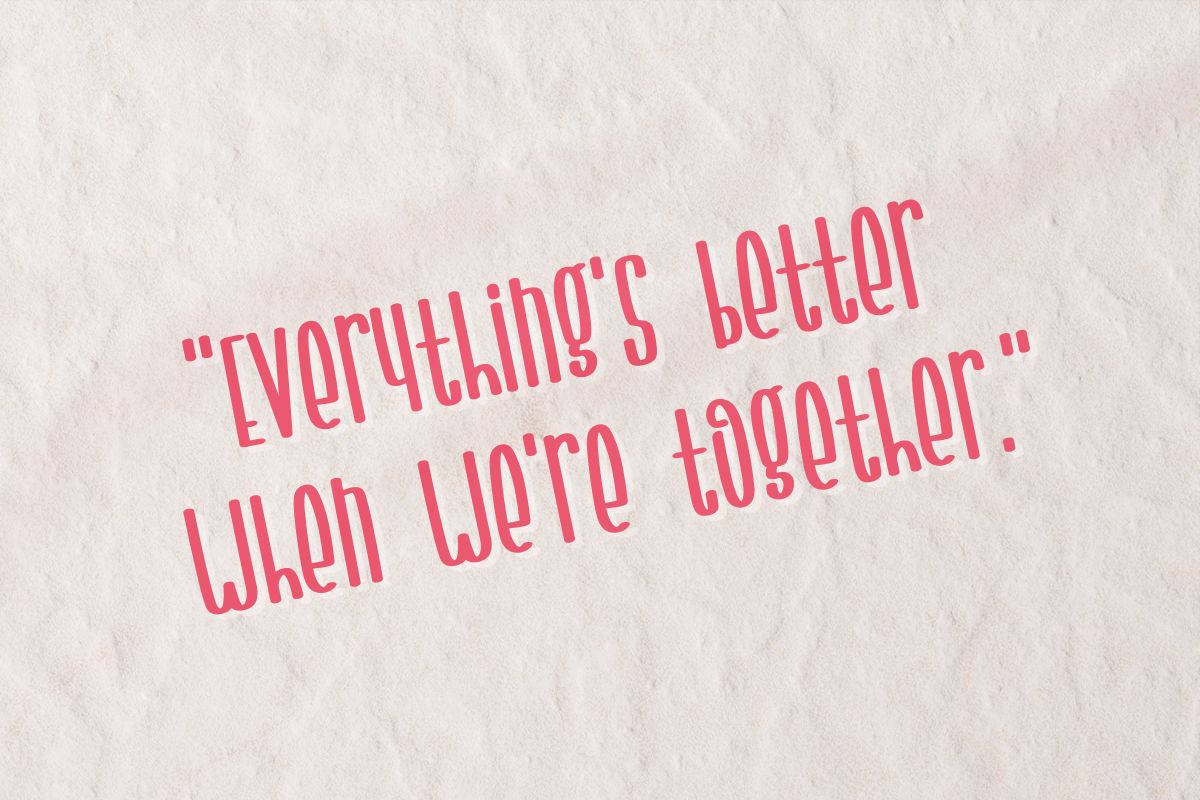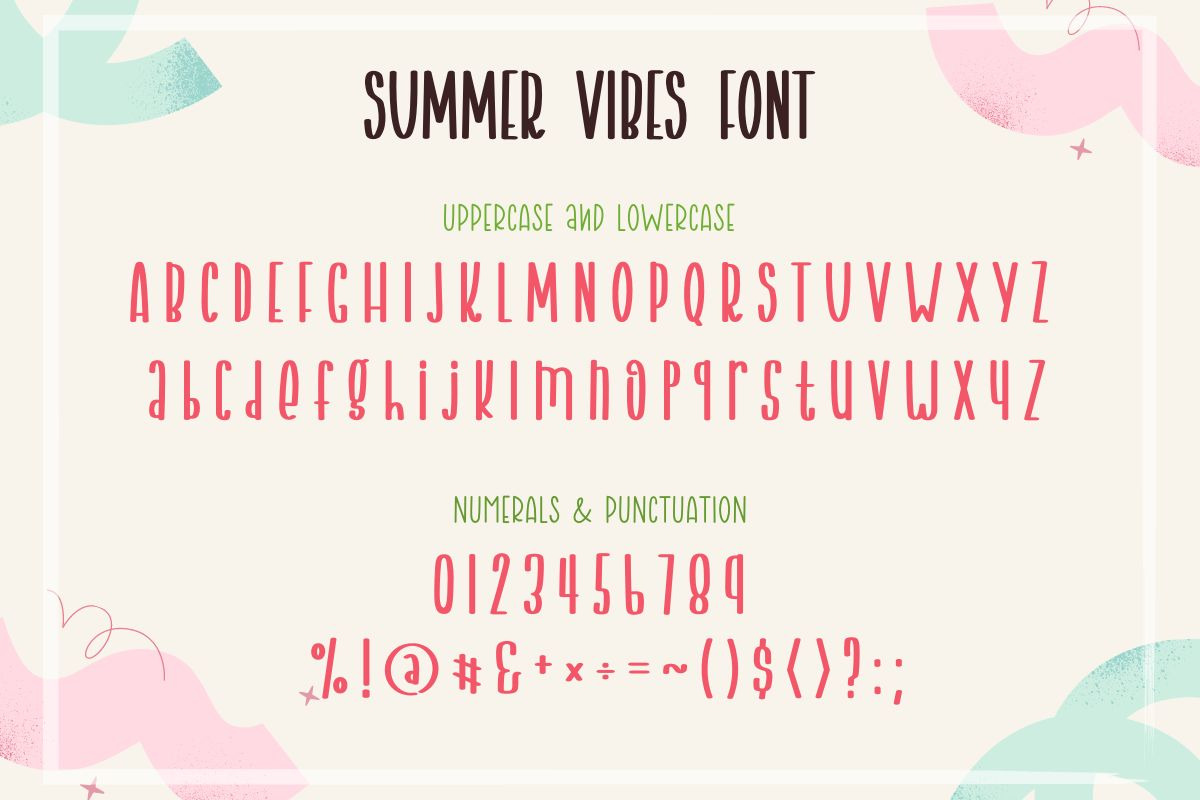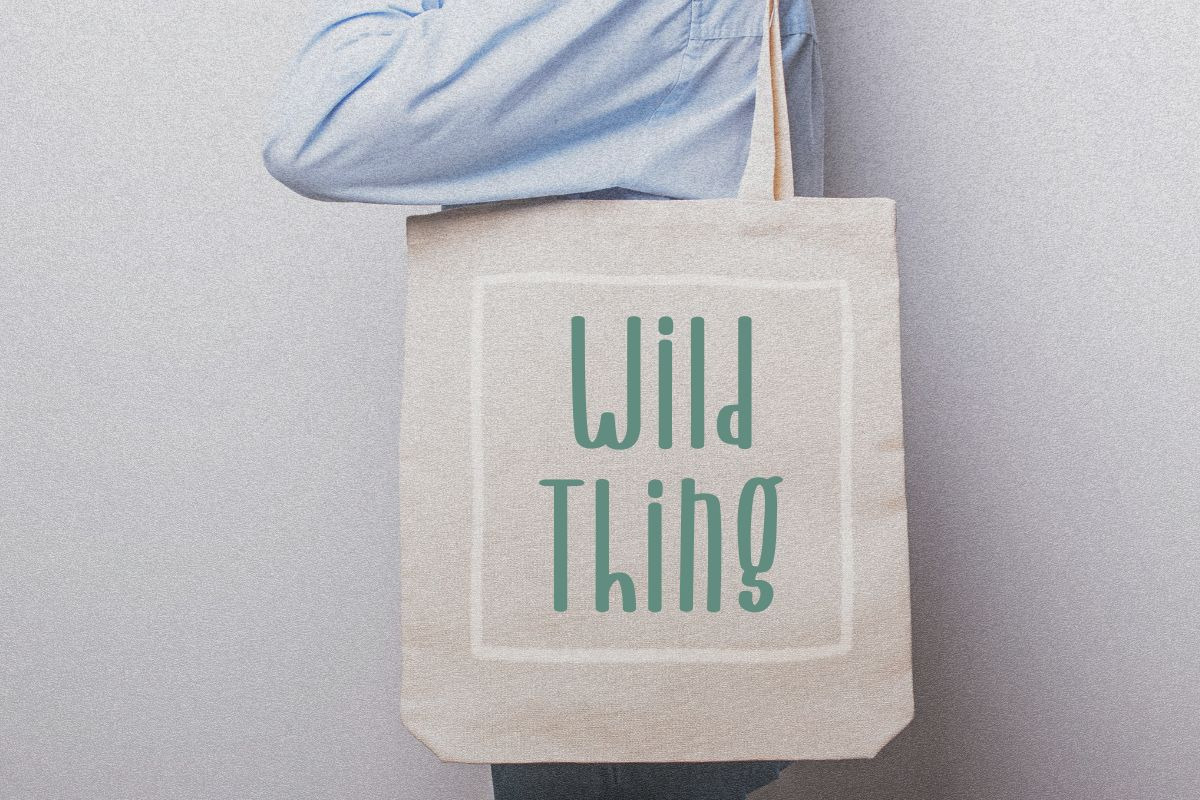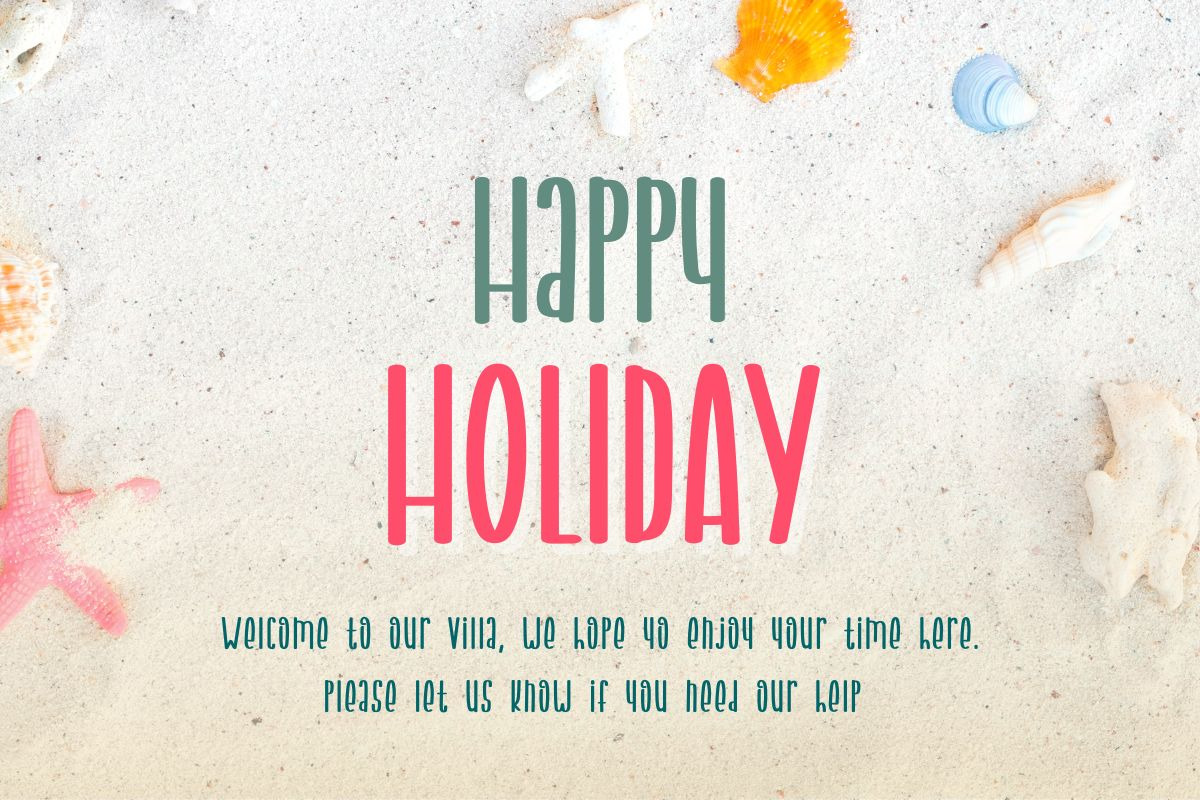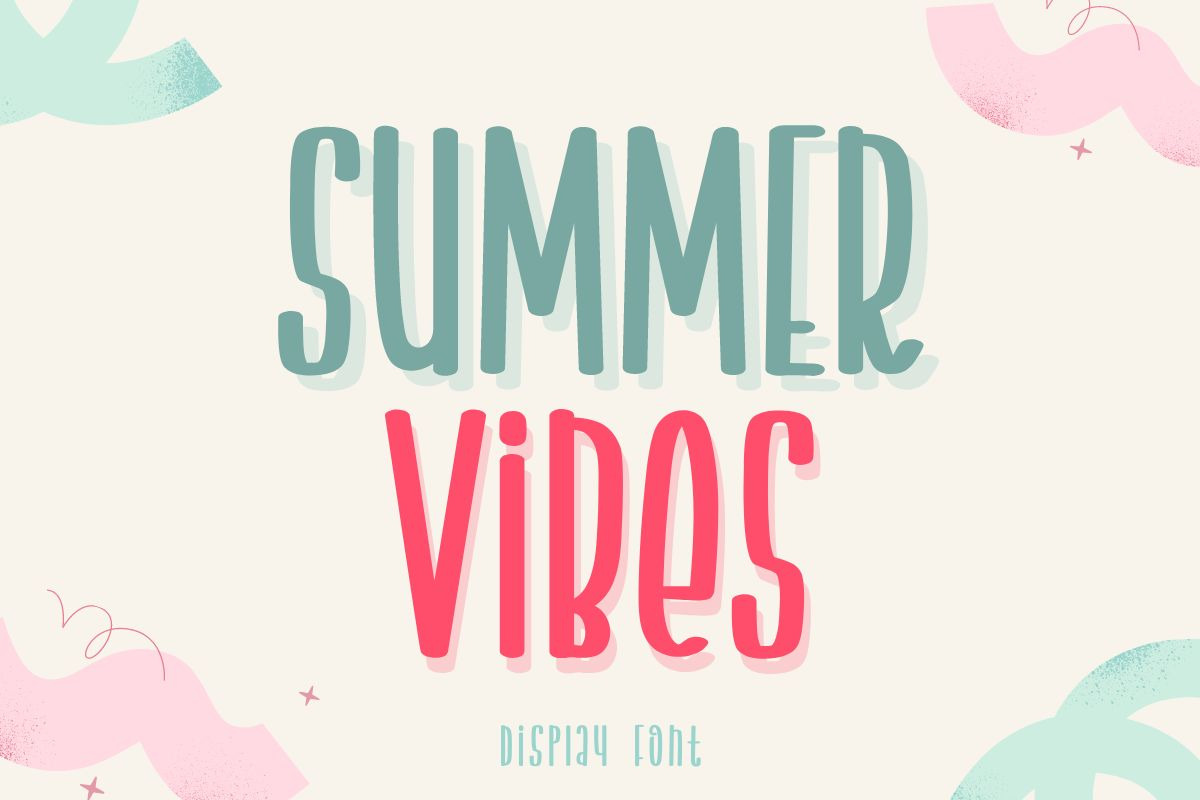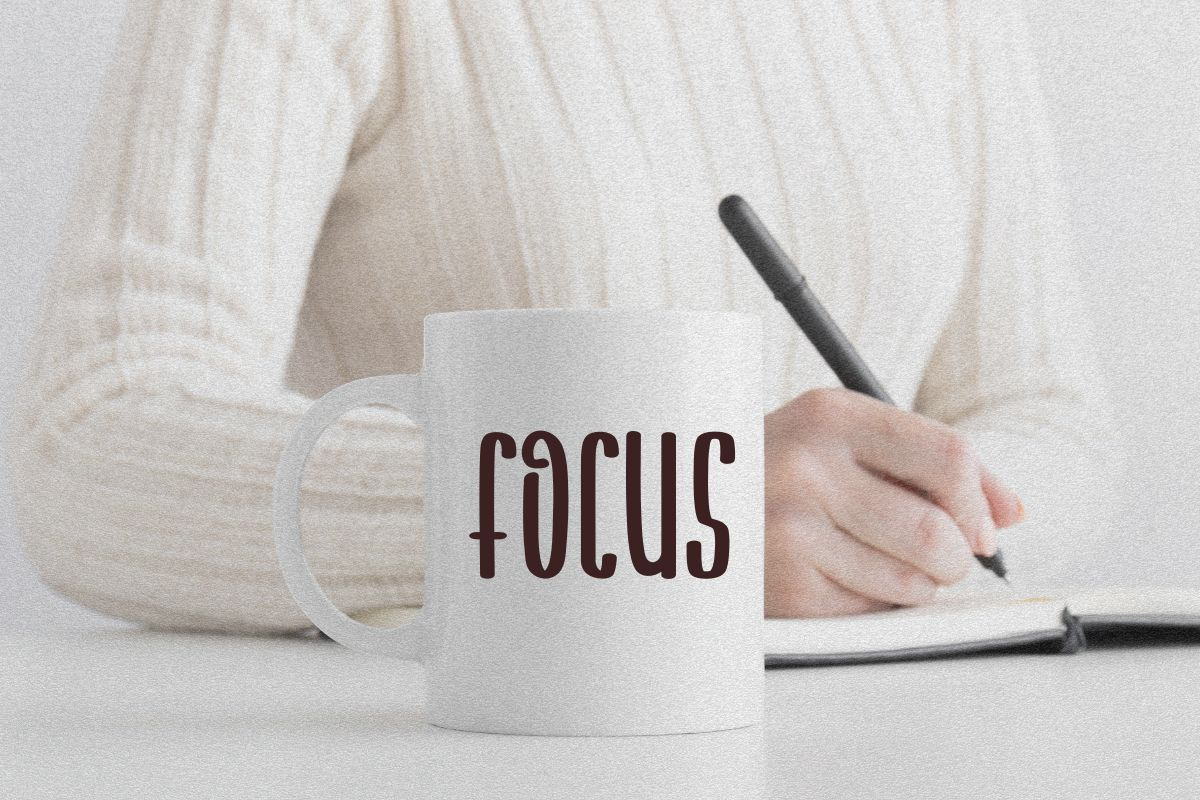
Summer Vibes | Handwriting Font
Summer Vibes is a cute Handwriting font that will help you enjoy and have fun with your designs. Perfect for creating a wide variety of new designs to match products such as banners, content, mugs, cards, shirts, stationery, social media posts, and more!